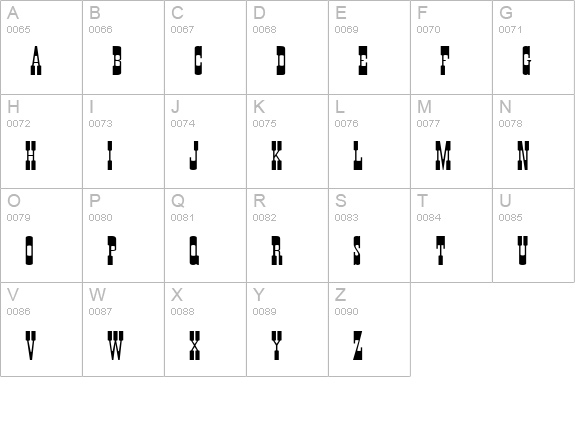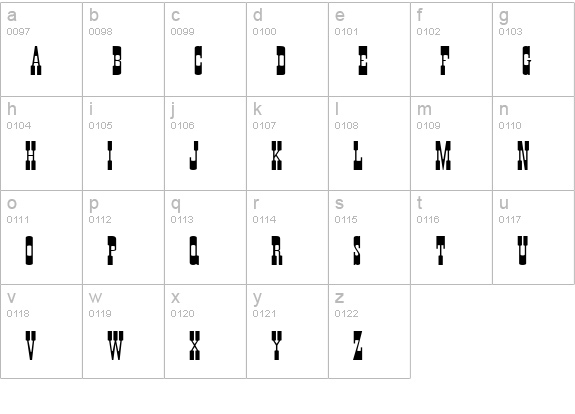
Wanted Poster Font Details
Introducing the Wanted Poster font, a captivating typeface that brings the spirit of the Wild West to your designs. This font is perfect for creating eye-catching posters, flyers, and other promotional materials that demand attention. With its bold and rugged letterforms, Wanted Poster font captures the essence of the frontier era. Each character is meticulously crafted, featuring unique serifs and a slightly distressed texture that adds an authentic vintage touch. Whether you're designing for a Western-themed event, a historical project, or simply looking to add a touch of nostalgia to your designs, Wanted Poster font is sure to make a lasting impression. What makes this font even more appealing is that it is completely free to download at FontsMarket.com. Yes, you read that right – this high-quality typeface can be yours at no cost. FontsMarket.com is a reputable source for free fonts, offering a wide range of options to cater to every design need. Download the Wanted Poster font today and unleash your creativity with this stunning typeface. Its versatility and charm make it a must-have for any designer or typographer. So go ahead, create captivating visuals, evoke the spirit of the Wild West, and make your designs stand out from the crowd – all with the help of Wanted Poster font, freely available at FontsMarket.com.